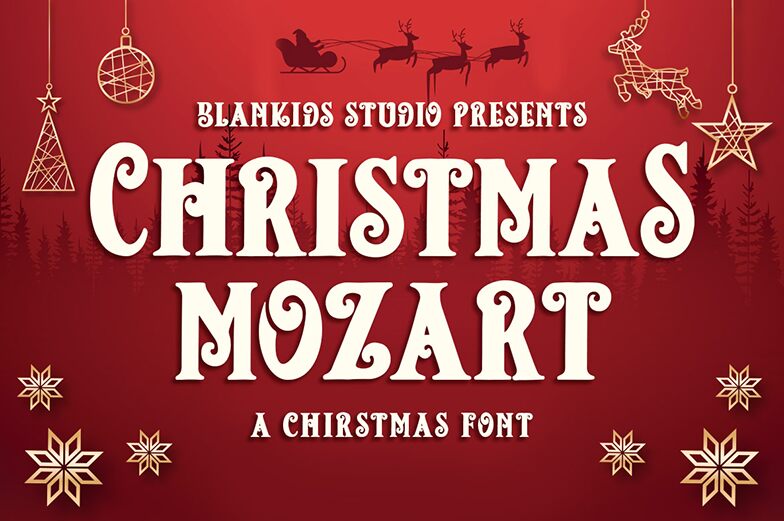
Christmas Mozart, designed by Bangkit Tri Setiadi, encapsulates the joy and charm of the holiday season through its bold and condensed typeface. Crafted to capture the essence of Christmas, this font exudes a festive spirit with each letter adorned in a style reminiscent of winter's whimsy and warmth.
The aesthetic appeal of Christmas Mozart lies in its intricate curves and flourishes that evoke images of frost-edged windows and evergreen garlands. Its bold weight ensures high readability, making it stand out in any creative context, while the condensed width allows for impactful use without compromising on elegance.
Ideal for seasonal greetings, holiday-themed marketing materials, or eye-catching event invitations, Christmas Mozart brings a touch of yuletide magic to every project it graces. Whether used digitally or in print, this font's festive flair is versatile enough to enhance any message with a celebratory tone that is both stylish and enchanting.
Christmas Mozart by Blankids Studio